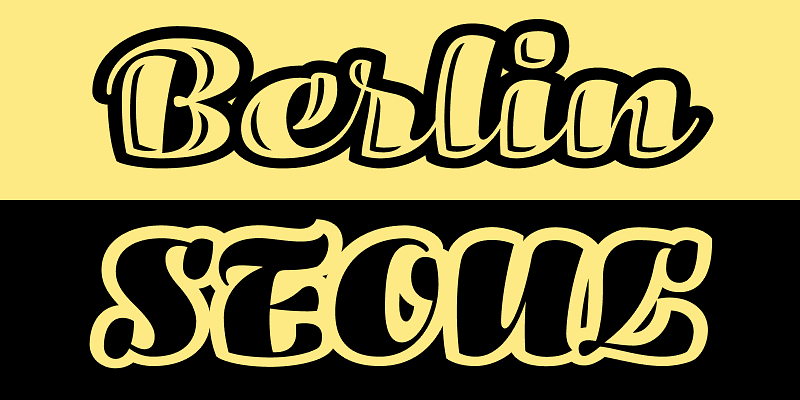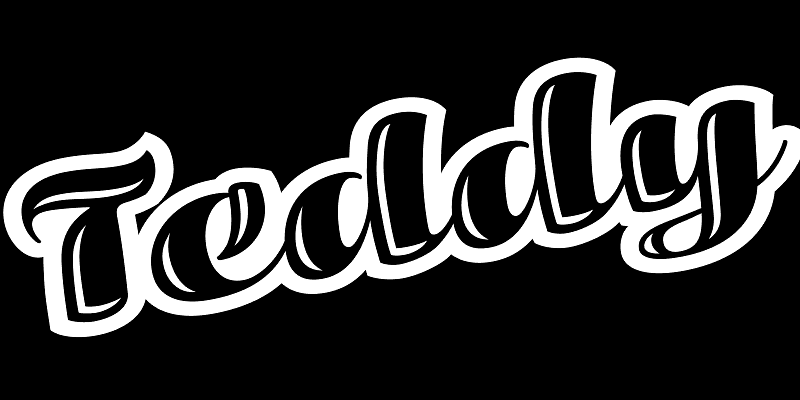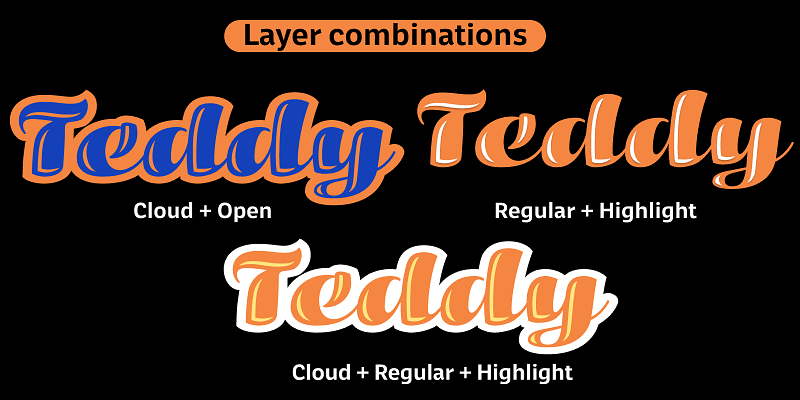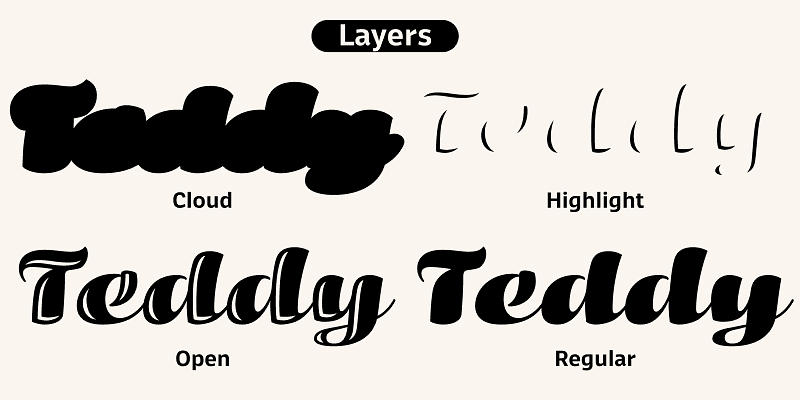
A Playful Layered Script System Teddy is a warm, retro-inspired script family designed for customization. Built on a stackable layering system, Teddy allows you to mix and match four distinct styles—Cloud, Regular, Open, and Highlight—to create instant 3D depth, sticker-like outlines, and glossy vintage effects. Perfect for logos, packaging, and cheerful headlines that need a pop of personality.Teddy received a certificate of typographic Excellence from TDC64.
Minjoo Ham is an independent type designer and a half of Hypertype foundry. She completed the TypeMedia master course at the Royal Academy of Art in The Hague, Netherlands, concentrating on Latin and Hangul double-script, since then she is producing multi-script font families for multi script font project.